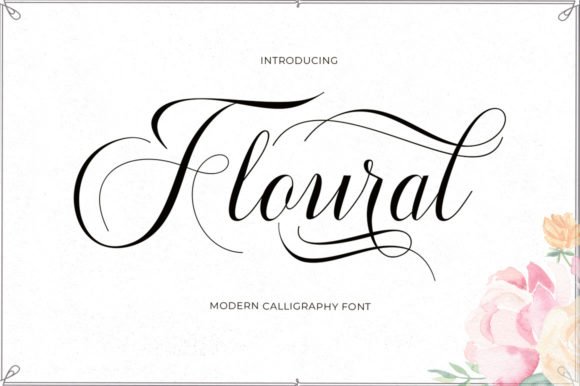
The Art of Elegant Typography: Floural Script Font
As a designer, there’s nothing quite like the thrill of creating a new project and watching it come to life. But sometimes, it’s not just about the content or the message – it’s about the way it’s presented. That’s where typography comes in, and when it’s done right, it can elevate your design from good to great. For me, that moment of magic happened when I stumbled upon the Floural Script Font. Its elegant, classy style had me hooked from the very start.
The Floural Script Font is a beautiful calligraphy script that adds a touch of luxury to any design. Its purpose is simple: to make your words look amazing. Whether you’re creating a wedding invitation, a branding package, or a social media post, this font is sure to impress. And as a designer, you know how valuable a great font can be – it’s the perfect way to add personality and style to your work.
With its versatility and sophistication, the Floural Script Font is a must-have for any designer looking to take their work to the next level. Its elegant feel is perfect for high-end projects, but it’s also great for everyday use – making it a valuable addition to any design arsenal.
Floural Script Font Key Features
- Font Style: Script font with elegant, flowing lines and floral elements.
- Unique Characteristics: Features intricate floral patterns and ornaments, making it ideal for wedding invitations, greeting cards, and other special occasion designs.
Floral Script Font Review
As a designer, I’m always on the lookout for beautiful and elegant fonts to add some personality to my designs. The Floral Script Font caught my eye, and I was excited to give it a try. Here’s my honest review:
- The font’s intricate details and flourishes are stunning, making it perfect for adding a touch of whimsy to your designs.
- The script font’s flowing lines and connections create a beautiful, handwritten feel that’s perfect for wedding invitations, greeting cards, or other personal projects.
- The font is highly customizable, allowing you to adjust the size, color, and spacing to fit your design needs.
- The font can be a bit too ornate for some designs, so it’s essential to use it sparingly to avoid overwhelming the viewer.
- The font may not be suitable for body text, as it can be difficult to read in smaller sizes.
Overall, I’m impressed with the Floral Script Font’s beauty and elegance. While it may have some limitations, it’s perfect for adding a touch of sophistication to your designs. Just be sure to use it judiciously and test it thoroughly before using it in a real project.
Practical Application Guide: Floural Script Font
The Floural Script Font is ideal for:
- Baby shower invitations and decorations
- Personalized gifts and cards
- Branding and logos for businesses in the wedding or event planning industry
For best results, pair the Floural Script Font with a clean and simple design to let the font take center stage.
Alternatives to Floural Script Font
Floural Script Font is a beautiful, elegant script font used in various design projects. However, sometimes it’s good to explore other options to add some uniqueness to your designs. Here are a few alternatives:
Alice Script
Alice Script is a classic, elegant script font perfect for formal invitations, wedding designs, and other high-end projects. It’s a bit more delicate and refined than Floural Script Font, making it ideal for projects where a touch of sophistication is needed. The main difference between the two fonts is the level of intricacy and the feel of the script.
Carolyna Pro is a modern script font with a touch of elegance. It’s ideal for projects that require a mix of modernity and sophistication, such as branding, advertising, and editorial designs. Compared to Floural Script Font, Carolyna Pro has a more streamlined look and a wider range of font weights, making it more versatile for designers.